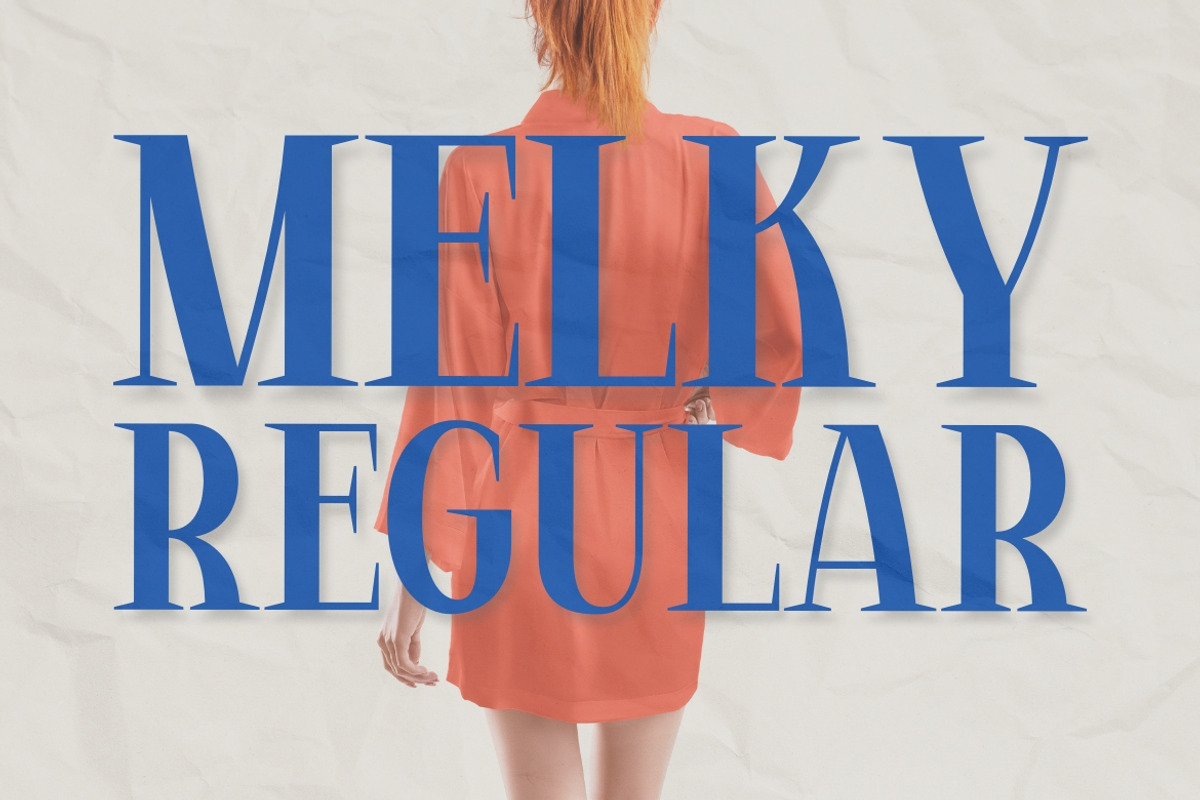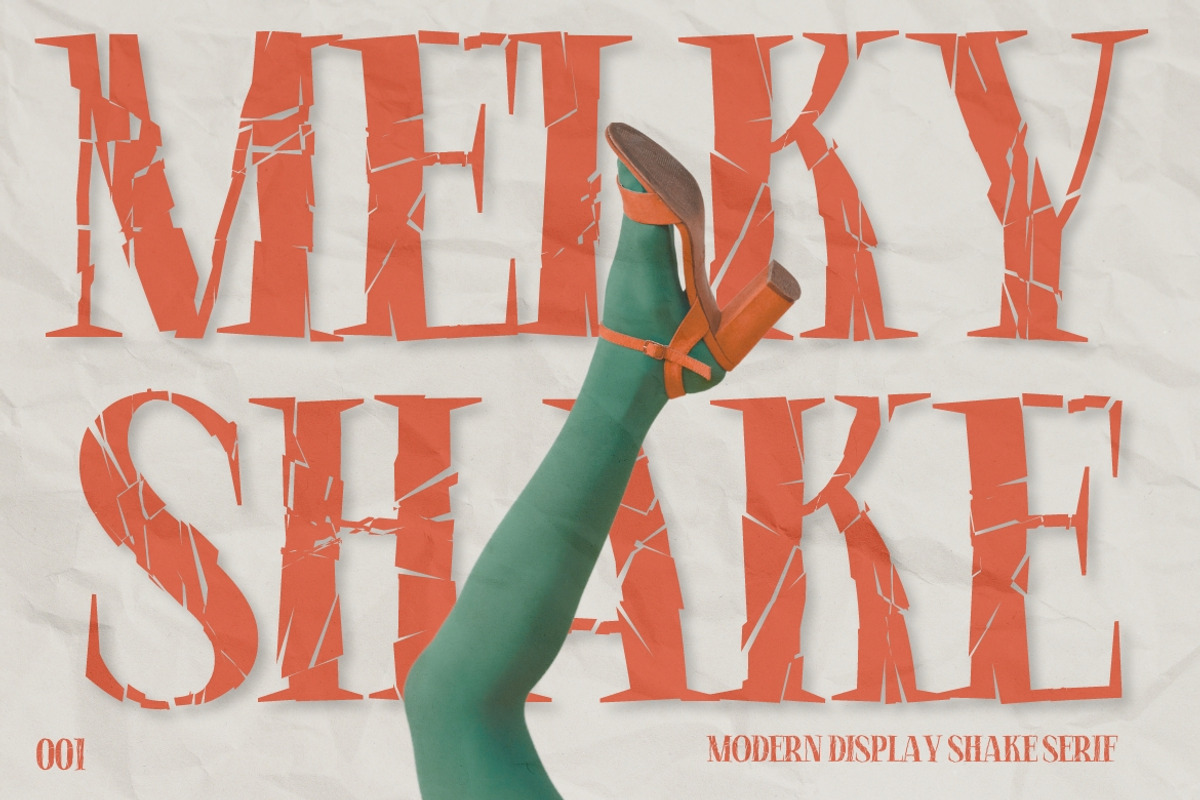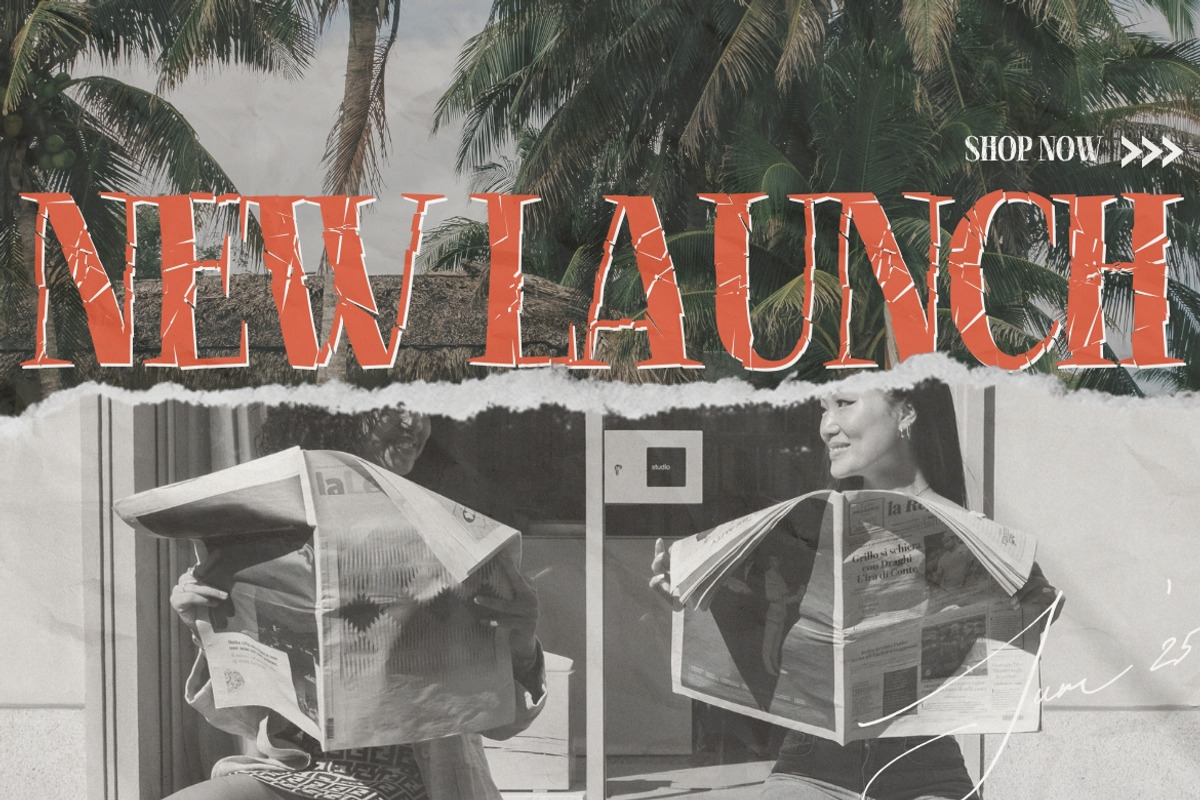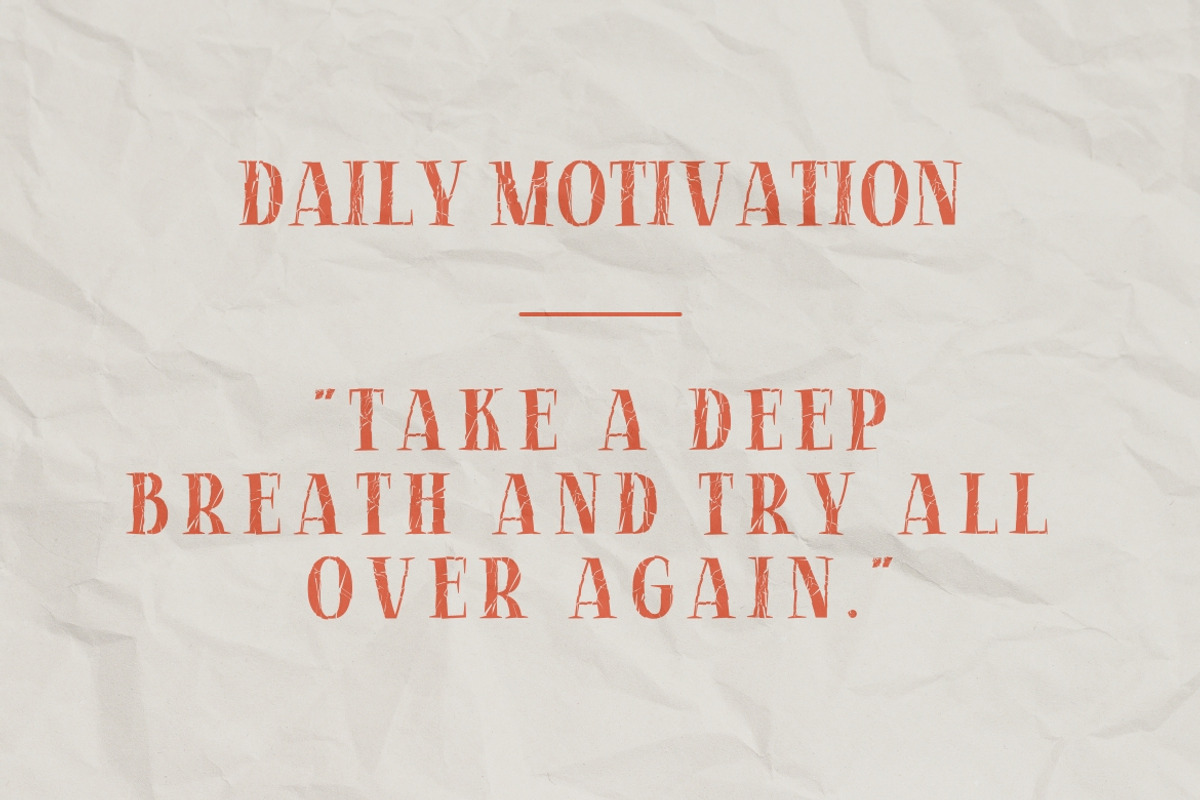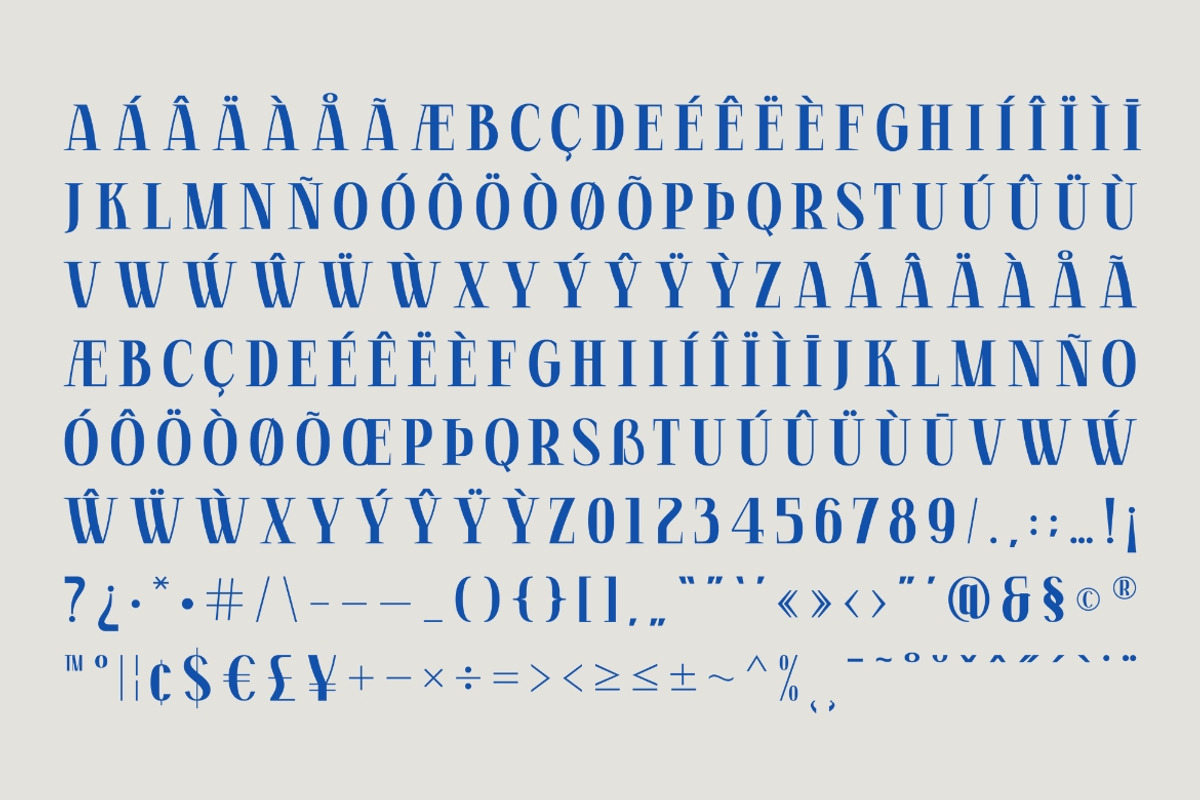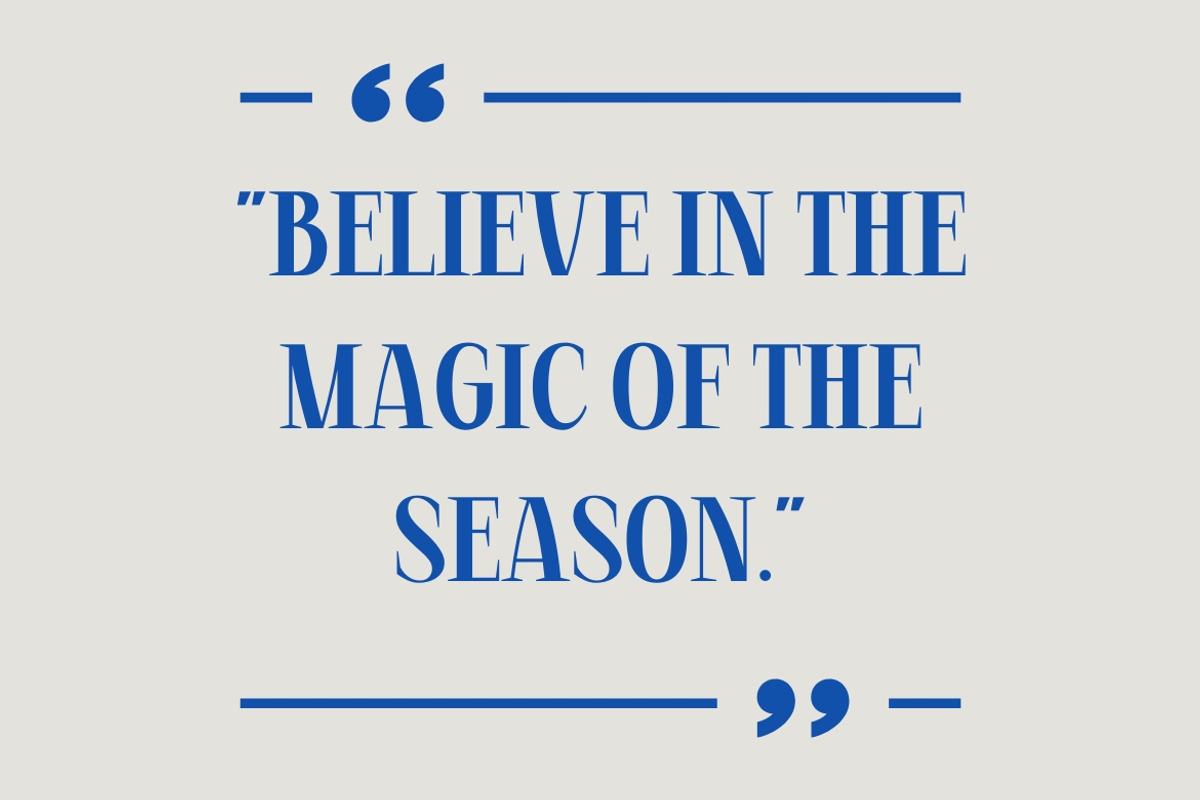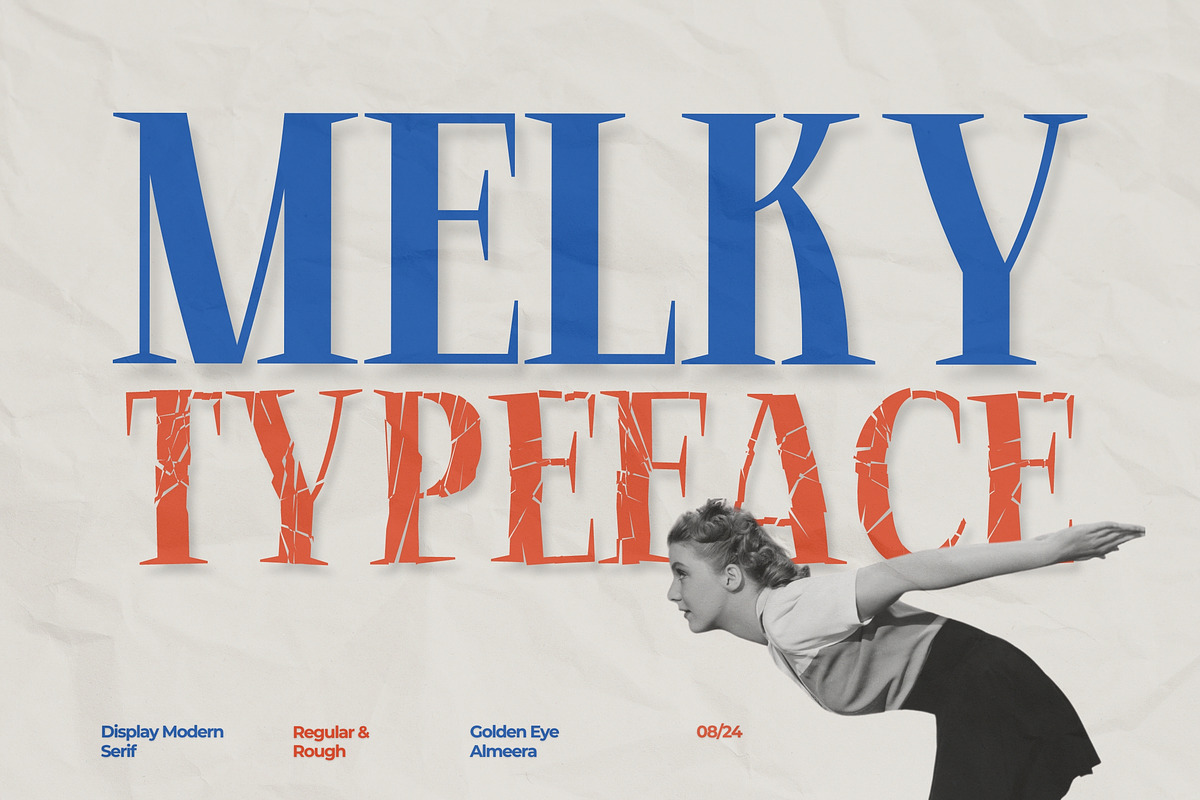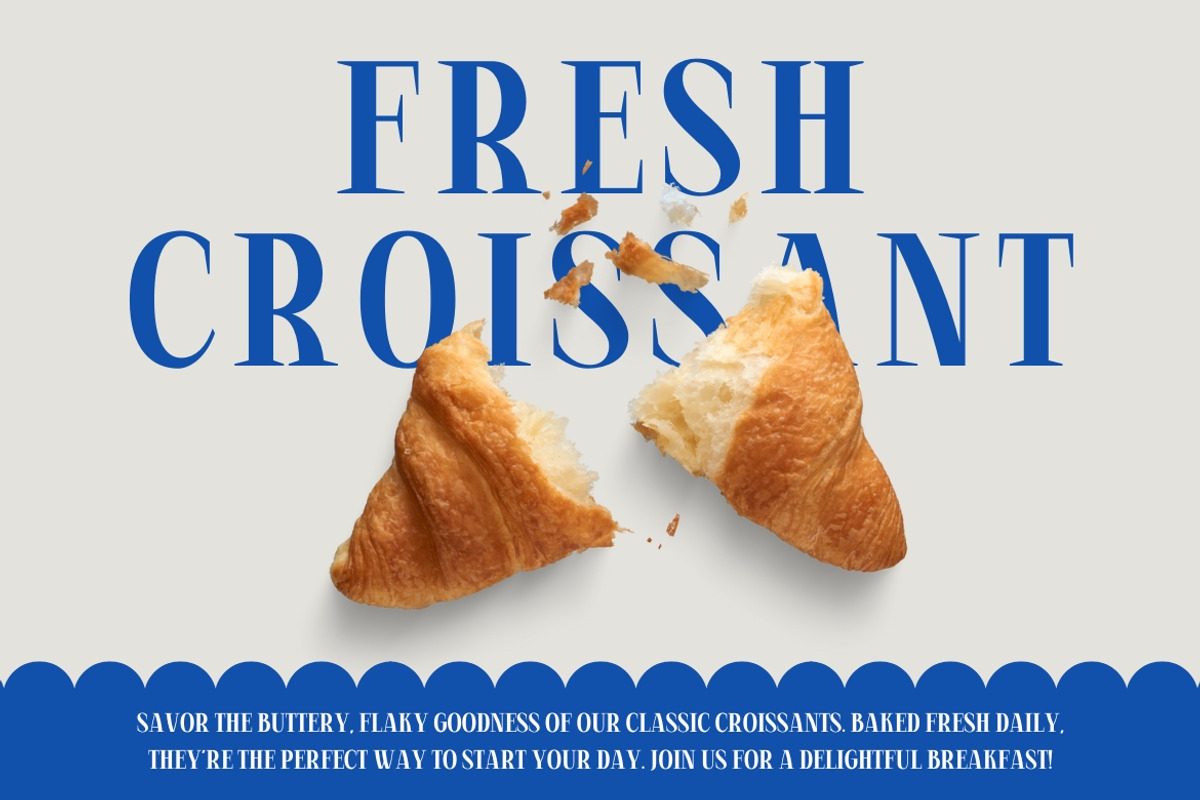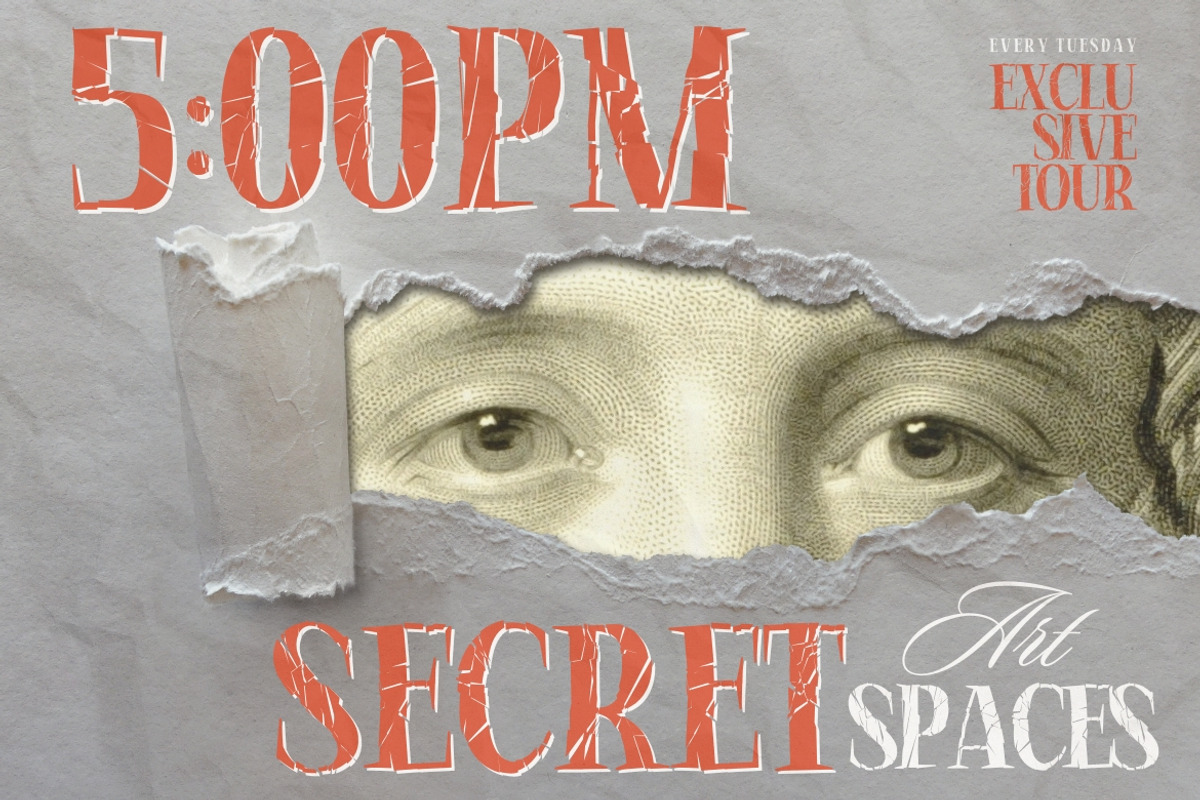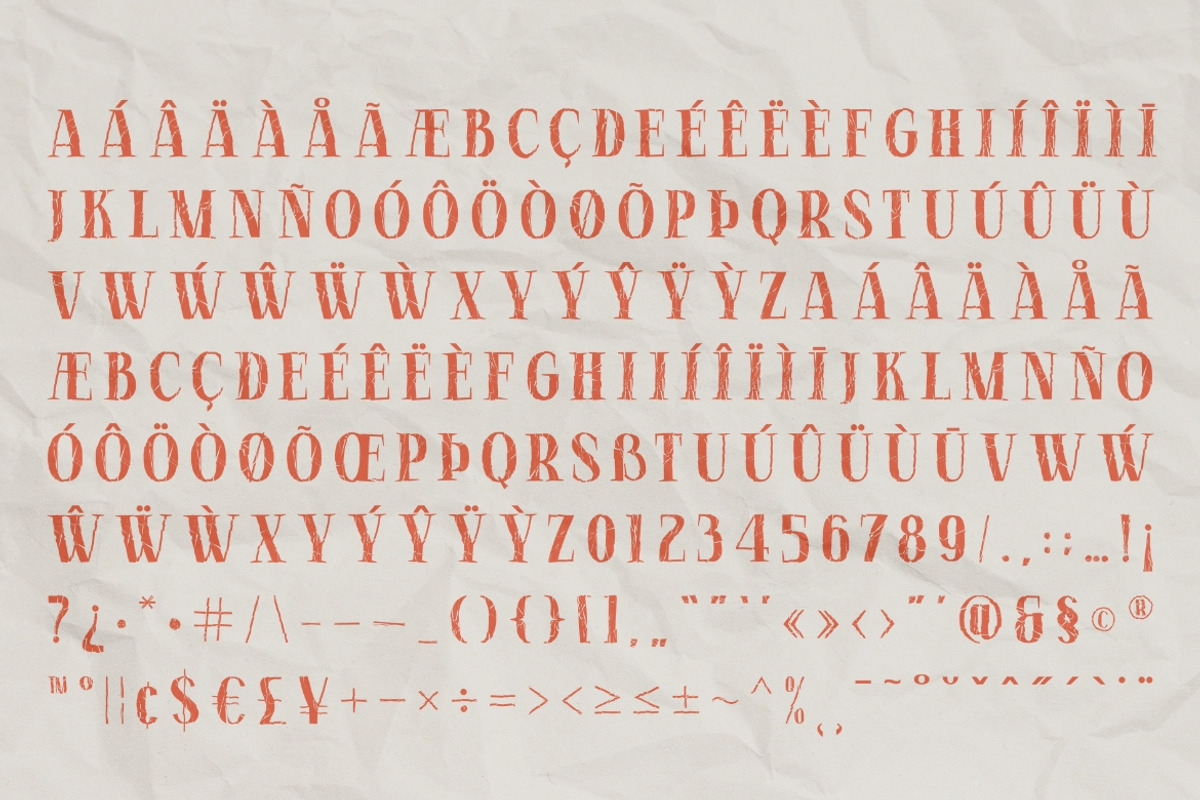
Melky - Modern Display Serif
Melky Typeface - Modern Display Serif Font
Introducing our new Melky Typeface, modern display come with 2 styles Regular & Shake serif font with elegant style this is perfect for branding, logos, invitation, magazines, product packaging and more.